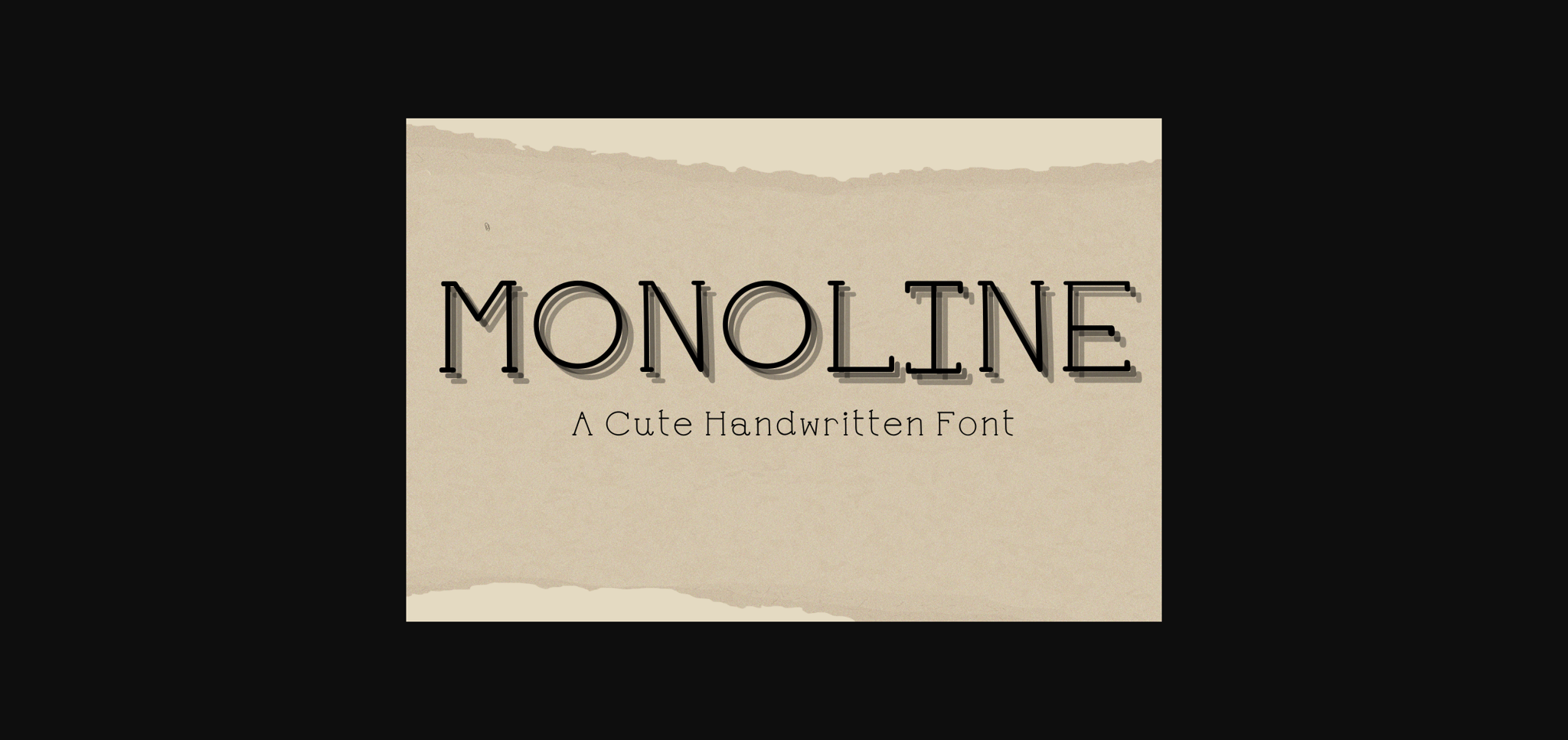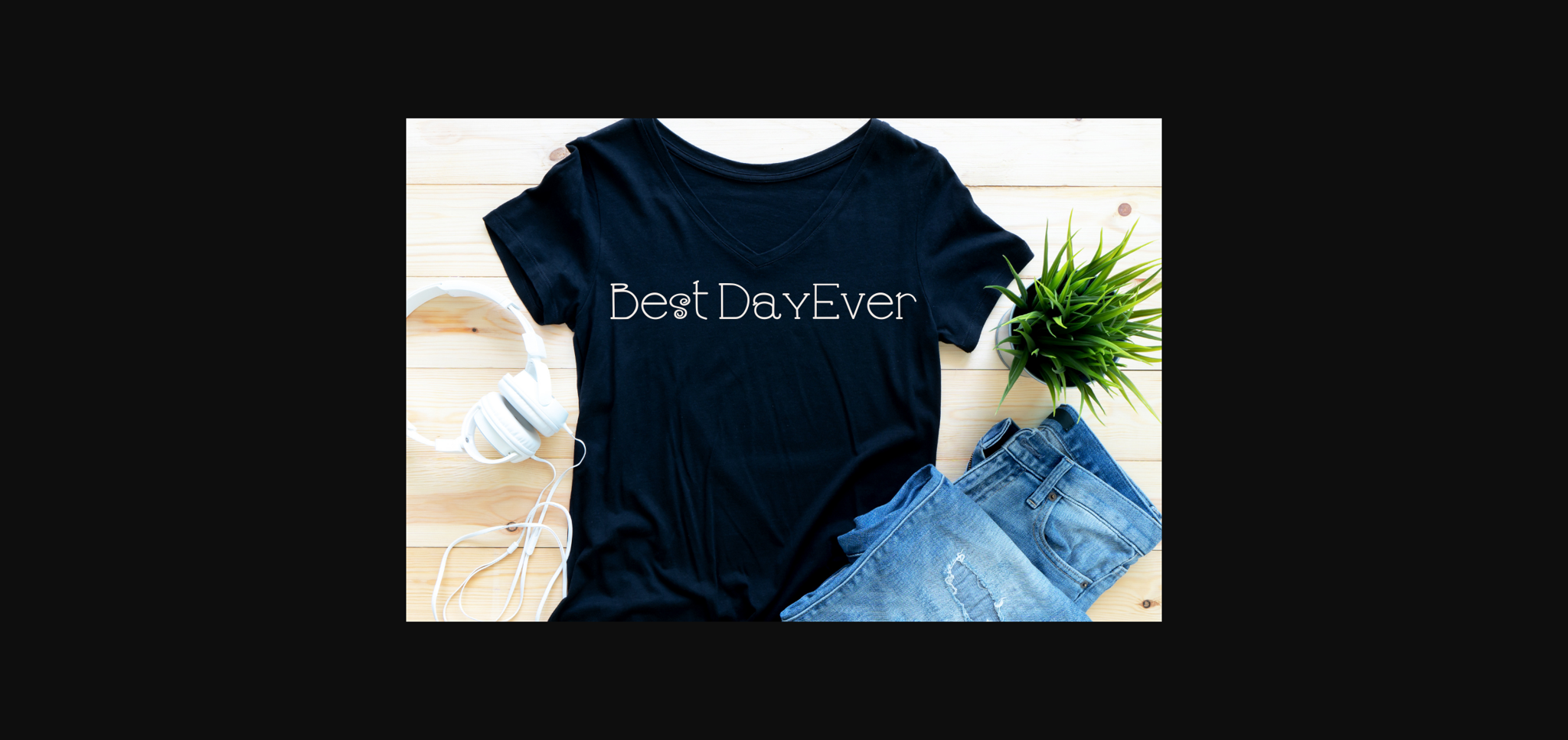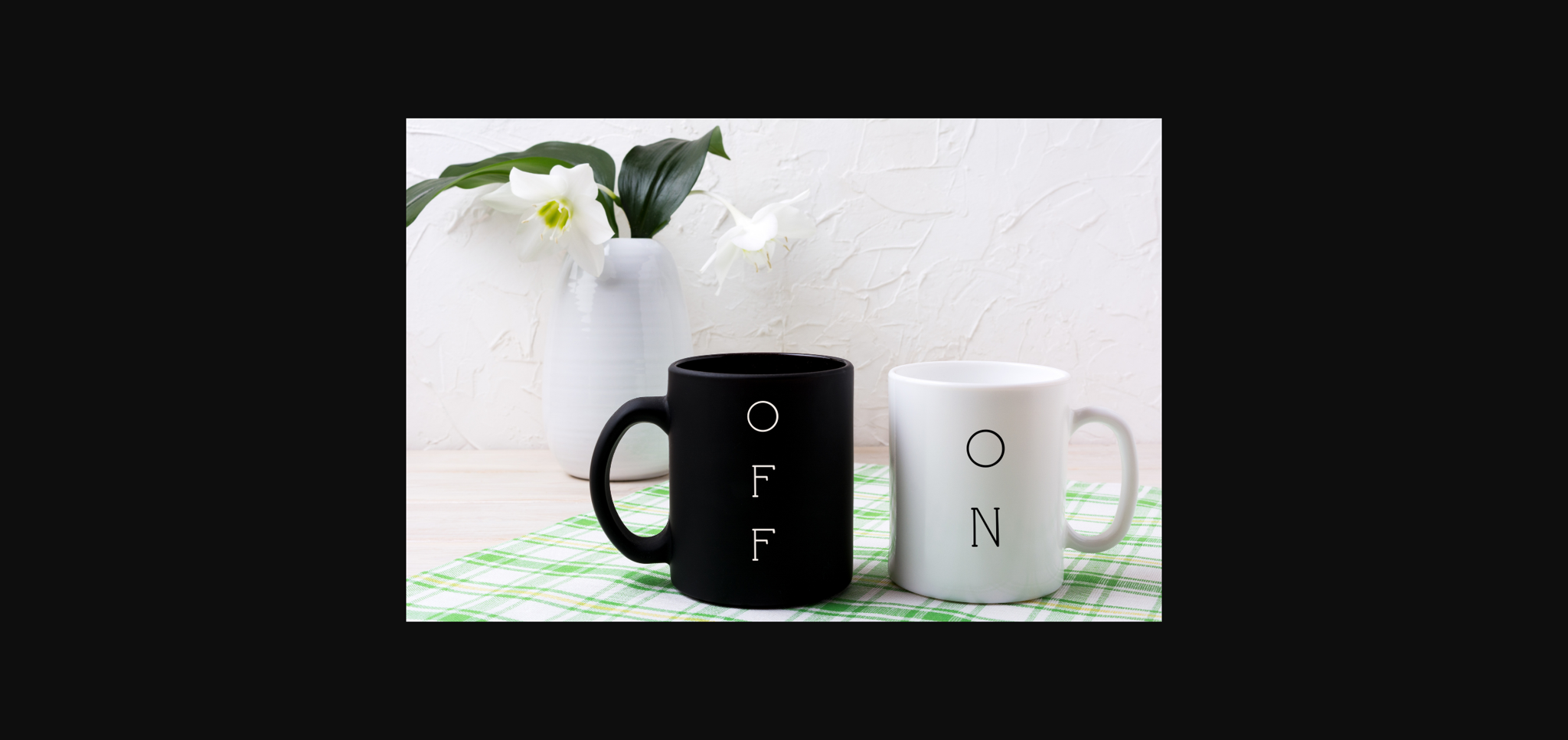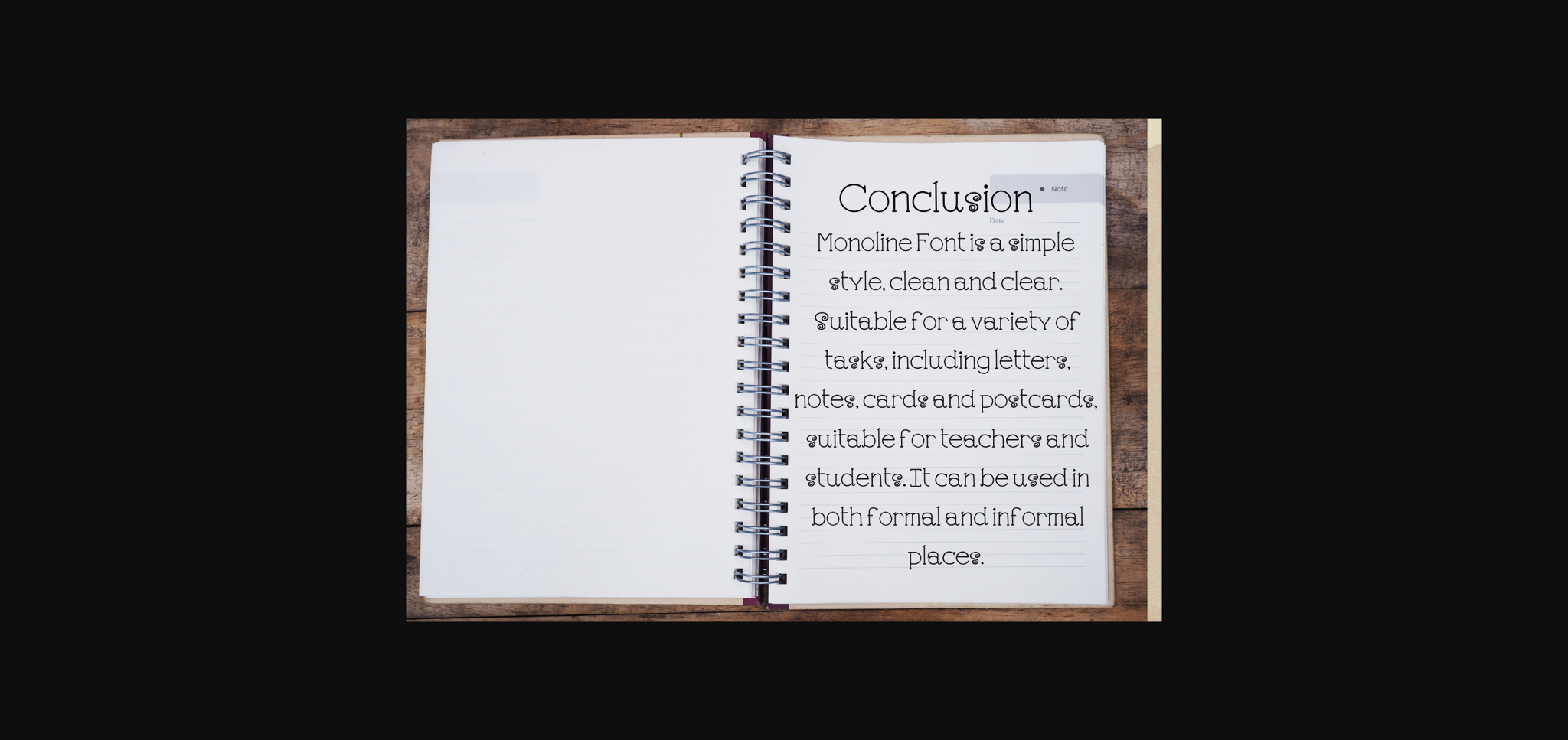
About Monoline Font
Monoline Font stands out with its adaptable and uncluttered design, making it a top pick for educators and students alike. It excels in a multitude of tasks, whether you’re creating carefully penned letters, concise notes, heartfelt cards, or captivating postcards. This font effortlessly transitions between formal and casual settings, establishing itself as a reliable and versatile typographic tool that caters to a diverse range of design and communication needs.